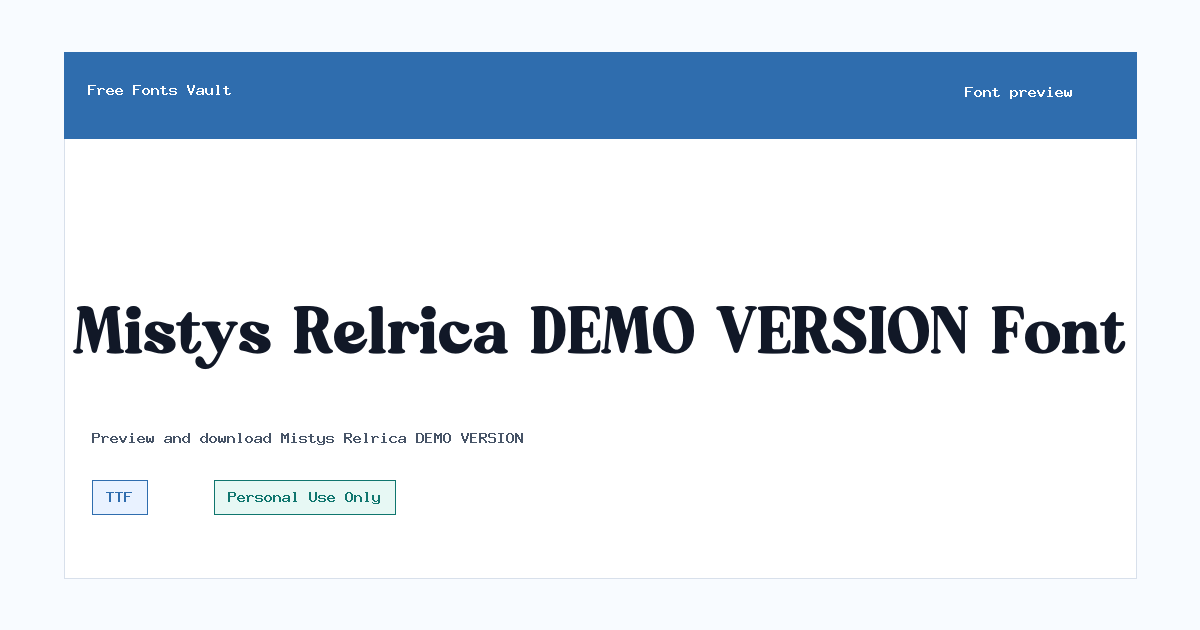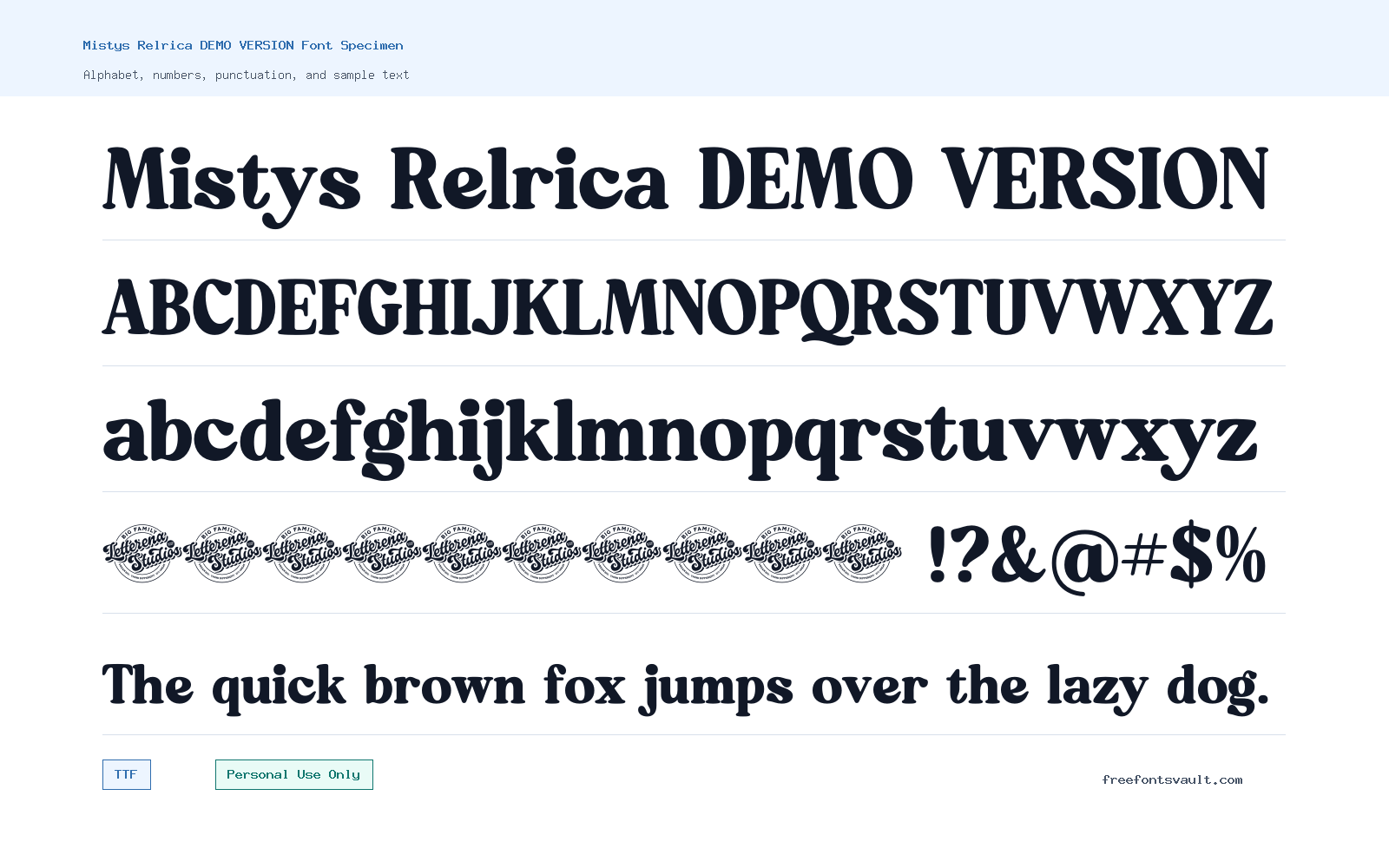
Mistys Relrica DEMO VERSION
Mistys Relrica DEMO VERSION is a serif font family with regular and italic styles, made for personal design testing, previews, and non-commercial creative work.
Mistys Relrica DEMO VERSION gives visitors a serif option with both upright and italic cuts, so it is useful for testing a more editorial or display-focused look before choosing a final typeface. The name and file set indicate a demo release, and the license information marks it for Personal Use Only. That makes it suitable for private drafts, school or hobby projects, personal mockups, and early design exploration, but not for client work, business branding, monetized products, advertising, or public commercial use unless you obtain the proper license from the rights holder.
This font is better suited to short, visible text than dense reading blocks. Try it at larger sizes first, then check spacing between letters in words like “Love,” “Modern,” “Studio,” and “Wedding,” as serif display fonts can change character depending on the letter combination. If you are building a poster, social graphic, web hero image, or logo concept, keep the supporting typography simple. A clean sans serif or a quiet text serif can help Mistys Relrica stand out without making the design feel crowded.
• Regular and italic styles for upright headlines and softer accent text
• Serif styling appropriate for short display text, titles, invitations, and logo concepts
• Personal poster titles and social media mockups
• Invitation drafts, mood boards, and stationery concepts
• Logo concept exploration before choosing a commercially licensed font
• Editorial-style headings, quotes, and short decorative text
• Web hero mockups and private design previews
The font is credited to Heru Utama Putra and Letterena Studios, with the designer/foundry link pointing to Letterena.
Preview your exact text before downloading. Try the regular style for the main title and the italic style for a short subtitle, quote, or accent. Keep body text in a simpler companion font, and check letter spacing carefully if you use it for names, logos, or large display settings.
Who designed Mistys Relrica DEMO VERSION?
The font is credited to Heru Utama Putra, with Letterena Studios listed as the foundry.
What is this font best used for?
It is best for short personal-use designs such as poster titles, invitation drafts, logo concepts, mood boards, quotes, and web mockups.
Does the font include an italic style?
Should I use it for long paragraphs?
It is safer to use it for short display text. For long paragraphs, pair it with a cleaner, highly readable text font.